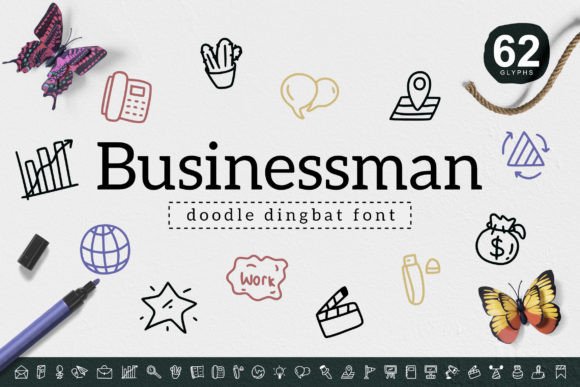
Introducing Businessman Font - The Ultimate Dingbats Font for Kids
Embark on a whimsical typographic adventure with Businessman Font, a playful and engaging dingbats font designed to ignite your creativity and bring a touch of magic to your designs. Step into a world where letters dance and symbols come alive, transforming your projects into captivating visual spectacles.
Express Yourself with Endless Possibilities
With Businessman Font, the possibilities are limitless. Unleash your imagination and let your designs soar. Create eye-catching stickers that spark joy, design posters that tell enchanting stories, craft t-shirts that make a statement, and create greeting cards that warm hearts. The versatility of Businessman Font knows no bounds, allowing you to weave your creative vision into tangible masterpieces.
A Font That Speaks to Your Heart
Businessman Font is more than just a collection of characters; it's an emotional journey waiting to be discovered. Each symbol carries a unique story, evoking feelings of wonder, delight, and nostalgia. With every stroke and curve, Businessman Font captures the essence of childhood dreams and transforms them into tangible expressions of joy. Immerse yourself in a world where imagination reigns supreme, and let Businessman Font be your guide.
The Perfect Companion for Your Creative Endeavors
Whether you're a seasoned designer or just starting your artistic journey, Businessman Font is the perfect companion for your creative pursuits. Its user-friendly interface and intuitive design make it accessible to all skill levels, allowing you to effortlessly create stunning visuals. Unleash your inner artist and let Businessman Font be your muse, transforming your ideas into captivating realities.
Join the Businessman Font Revolution
Join a community of creative enthusiasts who have embraced the magic of Businessman Font. Explore endless design possibilities, share your creations with the world, and be inspired by the boundless talent that surrounds you. With Businessman Font as your creative ally, there's no limit to what you can achieve.